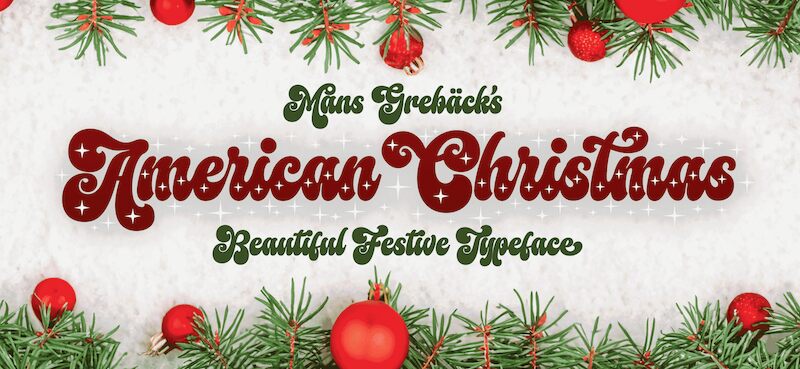
American Christmas 2, a creation by the talented Mans Greback, is the latest addition to the American Christmas font family that promises to sprinkle a dash of holiday magic on your creative projects. This holiday-themed typeface is not just another Christmas font; it's a celebration of festive cheer wrapped in typographic tinsel. Perfect for those who want to convey the cozy warmth of yuletide through their designs, its bold style and quirky flair make it ideal for everything from greeting cards and party invitations to promotional material and seasonal advertising.
The font dances with a funky, decorative spirit reminiscent of vintage holiday signs, infusing your words with an authentic touch of Christmases past. American Christmas 2 comes alive with stars that mimic the gentle glow of fairy lights, ensuring that each character you type radiates with festive joy. Available in three star-studded versions plus one clean cut, this font extends its versatility further with an additional symbol set for charming Xmas icons.
Crafted meticulously with advanced OpenType features such as stylistic alternates and contextual ligatures, American Christmas 2 offers unparalleled customizability. Its sweeping range covers all Latin-based languages-making sure your merry messages resonate globally. Whether it's punctuating prose or numbering Noel notes, this font encompasses all characters you'll need to express your seasonal spirit fully. Unleash the full potential of your creative endeavors this holiday season with American Christmas 2-where every word is a celebration.
American Christmas is a funky and decorative season's typeface that brings a festive touch to every word, with retro letters that dance joyously across the page.
Use parenthesis symbols () [] {} to make stars around any word.
Example: {Xmas}[Songs]
Use underscore _ after any word to make a swash.
Example: Santa_
Multiple underscores makes longer tails.
Example: Yuletide____